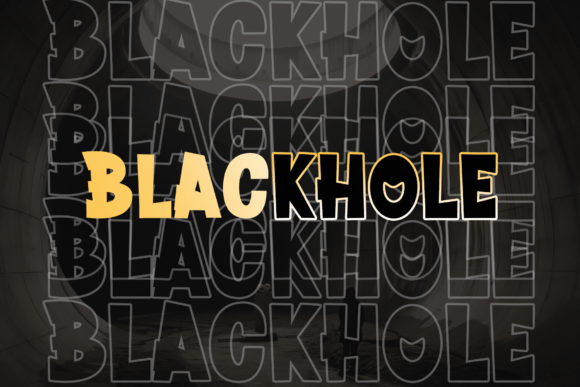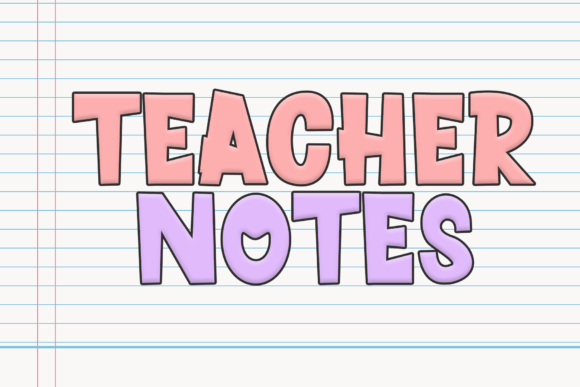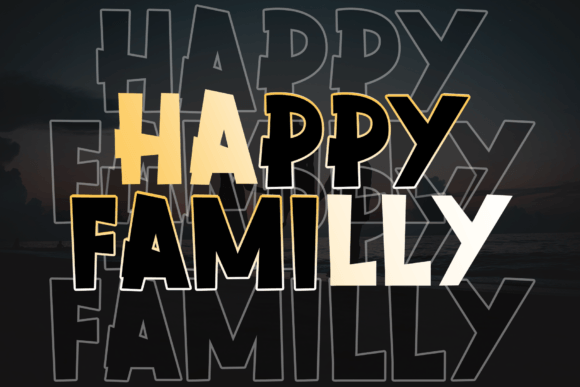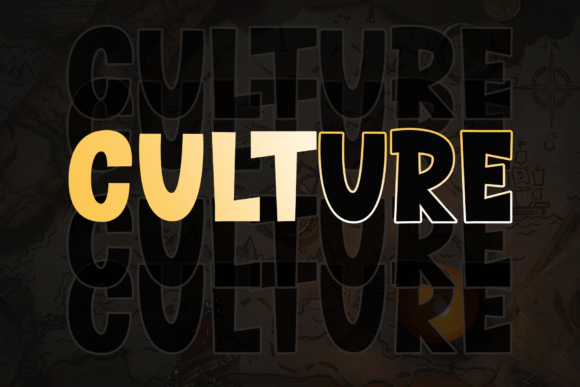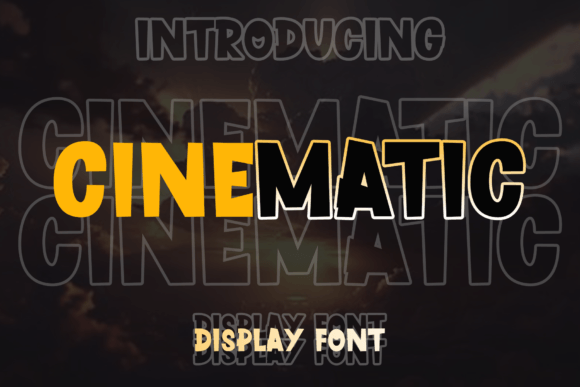
Cinematic Font: The Perfect Choice for Cheerful Designs
Are you looking for a font that can add a touch of fun and quirkiness to your designs? Look no further than Cinematic Font! This display font is perfect for creating cheerful and engaging designs, especially for children’s themed projects. In this article, we’ll explore the features and benefits of Cinematic Font and why it’s a must-have for designers and crafters.
What is Cinematic Font?
Cinematic Font is a fun and quirky display font that’s designed to add a touch of excitement to your designs. Its unique and playful style makes it perfect for creating eye-catching headings, titles, and captions. The font is highly legible, even at large sizes, making it ideal for use in posters, flyers, brochures, and other visual materials.
Perfect for Children’s Themed Designs
Cinematic Font is especially suitable for children’s themed designs, such as kids’ party invitations, children’s book covers, and educational materials. The font’s playful and cheerful style is sure to appeal to kids and adults alike, making it a great choice for projects that require a fun and youthful vibe. When combined with bright colors, Cinematic Font can create a visually stunning design that’s sure to capture attention.
One of the best features of Cinematic Font is that it’s PUA (Private Use Area) encoded. This means that you can access all of the amazing glyphs and ligatures with ease, without having to worry about complicated font editing software. With PUA encoding, you can simply select the glyphs and ligatures you want to use and insert them into your design. This makes it easy to add a touch of personality and whimsy to your designs.
Key Features of Cinematic Font
- Fun and quirky style: Cinematic Font has a unique and playful style that’s perfect for creating cheerful designs.
- Highly legible: The font is highly legible, even at large sizes, making it ideal for use in posters, flyers, and other visual materials.
- PUA encoded: Cinematic Font is PUA encoded, making it easy to access all of the amazing glyphs and ligatures.
- Perfect for children’s themed designs: The font’s playful and cheerful style makes it especially suitable for kids’ party invitations, children’s book covers, and educational materials.
How to Use Cinematic Font
Cinematic Font can be used in a variety of design projects, from digital designs to print materials. Here are a few ideas to get you started:
- Kids’ party invitations: Use Cinematic Font to create fun and playful invitations for kids’ parties.
- Children’s book covers: Add a touch of whimsy to your children’s book covers with Cinematic Font.
- Educational materials: Use Cinematic Font to create engaging and interactive educational materials, such as worksheets and activity sheets.
- Social media graphics: Use Cinematic Font to create eye-catching social media graphics, such as Facebook posts and Instagram stories.
Cinematic Font is a fun and quirky display font that’s perfect for creating cheerful and engaging designs. Its unique and playful style makes it especially suitable for children’s themed projects, and its PUA encoding makes it easy to access all of the amazing glyphs and ligatures. Whether you’re a designer or crafter, Cinematic Font is a must-have font that can add a touch of personality and whimsy to your designs.